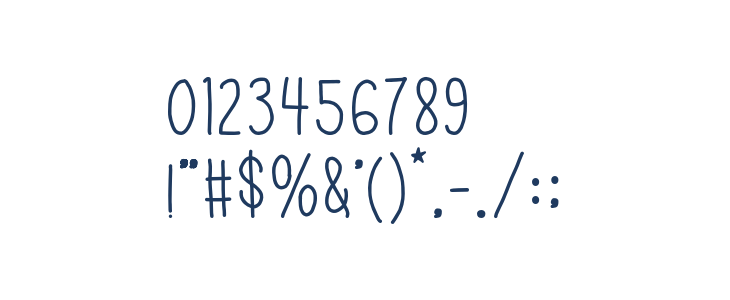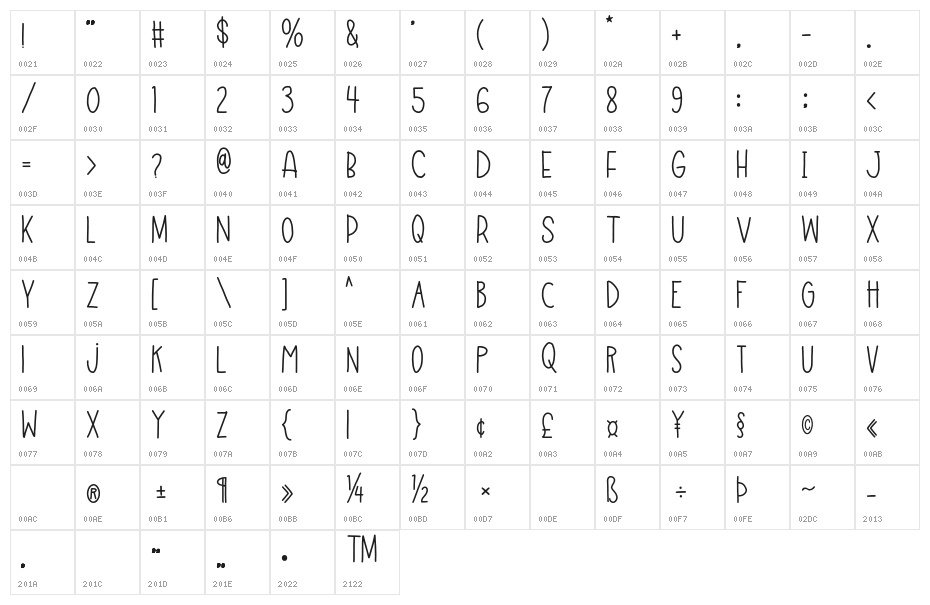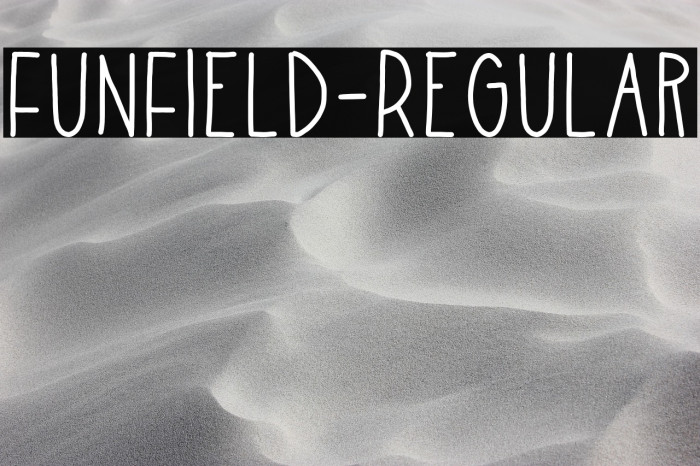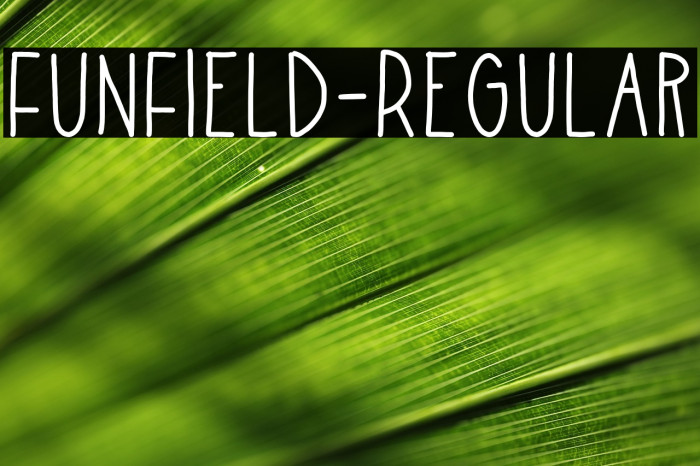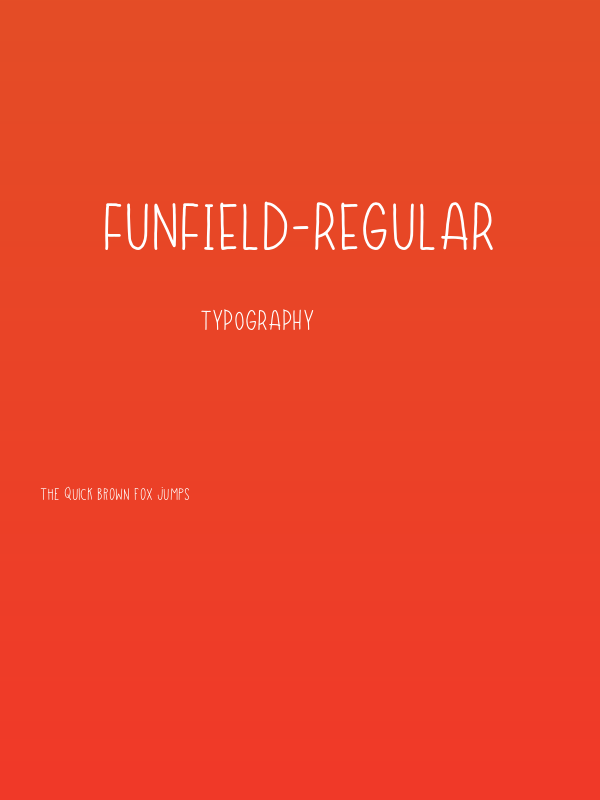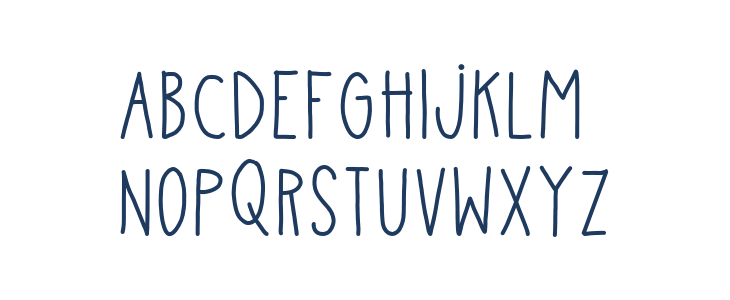
FunField-Regular Font
FunField-Regular Description
This playful and informal font features a handwritten style with a casual and approachable appearance. The characters are tall and slightly narrow, with a consistent stroke width that gives it a clean and uniform look. The letters have a slight tilt, adding to the relaxed and friendly vibe. The font includes both uppercase and lowercase letters, numerals, and a variety of special characters, making it versatile for different uses. Its simplicity and charm make it suitable for projects that require a personal touch.
| Width | Condensed |
| Overall Style | Casual |
| Use Case | Headlines, Informal text, Branding |
| Proposed Projects | Ideal for greeting cards, children's books, casual branding, and social media graphics. |